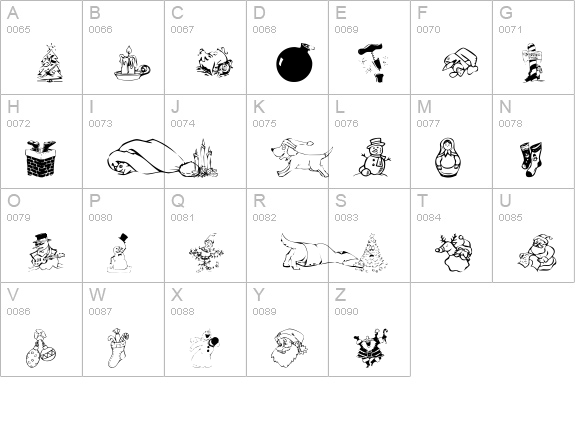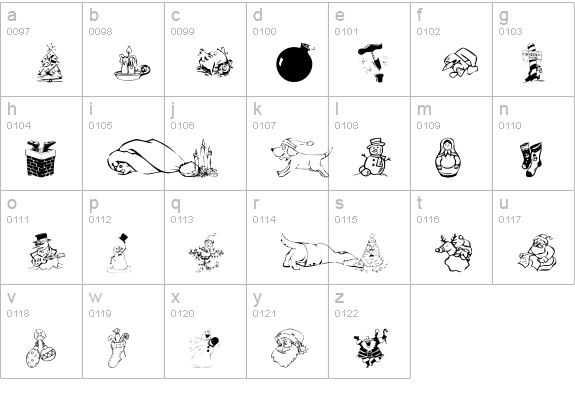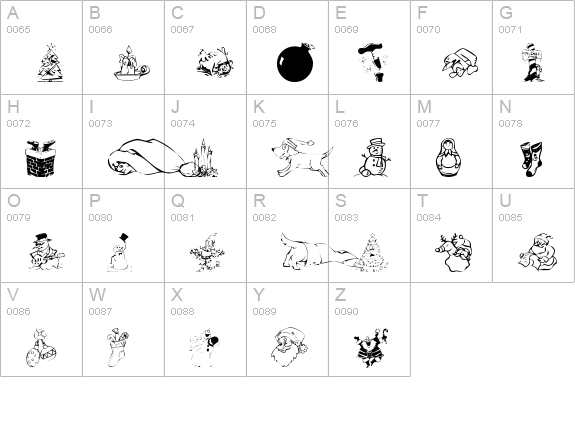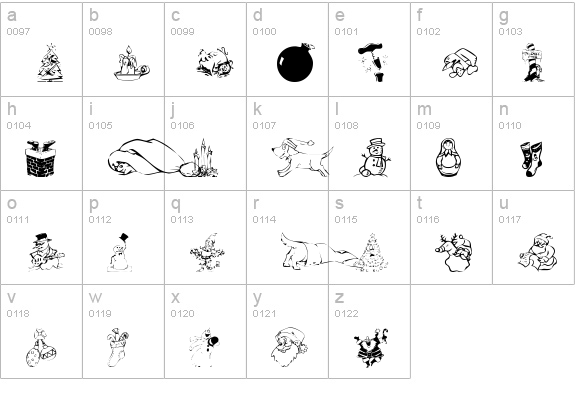
KR Christmas Dings 2004 Font Details
The KR Christmas Dings 2004 font is a whimsical and festive typeface perfect for adding a touch of holiday cheer to your designs. This font features charming Christmas-themed symbols and icons, making it ideal for creating holiday cards, invitations, and decorations. Whether you're looking to add snowflakes, presents, or Santa hats to your project, this font has you covered. Best of all, the KR Christmas Dings 2004 font is available for free download at FontsMarket.com. Embrace the spirit of the season and spread joy with this delightful font that will bring a smile to anyone's face. Add a touch of magic to your designs with this festive and fun typeface that is sure to make your holiday creations stand out. Download it today and start creating your own Christmas magic!